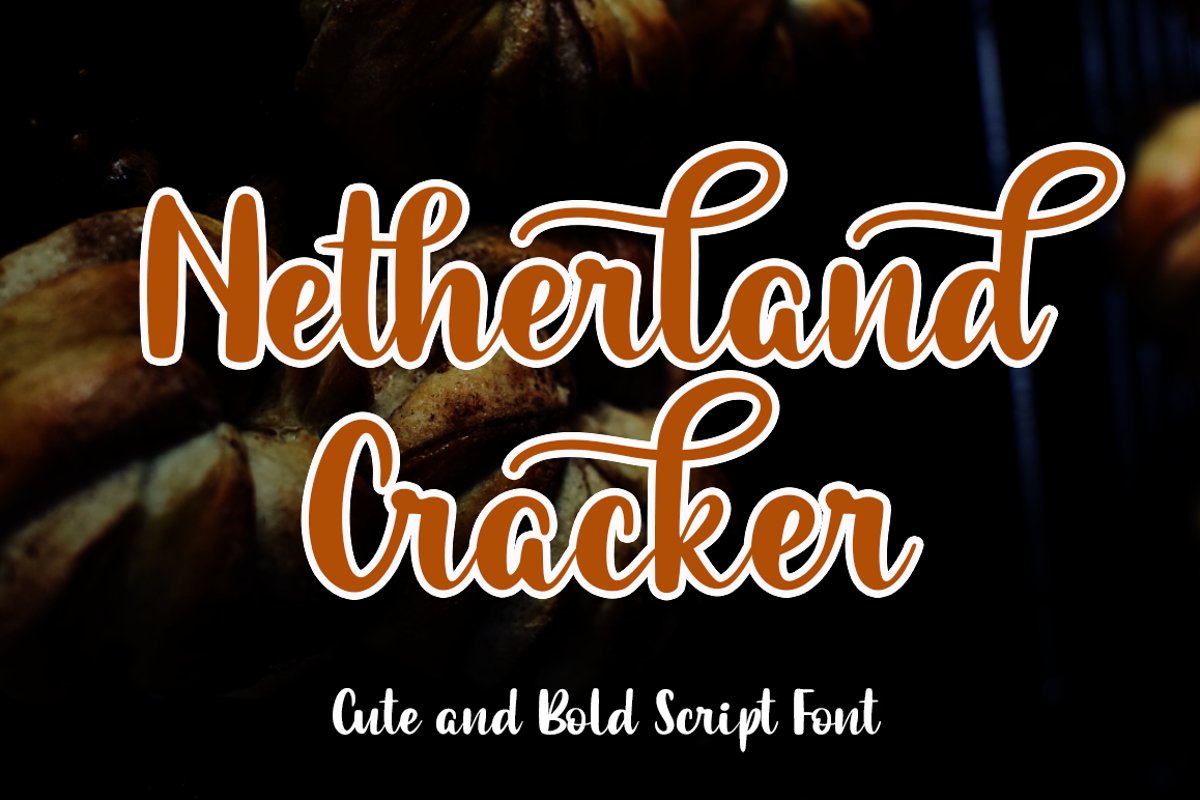
Netherland Cracker
A Handwritten font with modern fun calligraphy style
• Cute and pretty style with alternates in lowercase
• Numerical, Punctuation, Multi language included